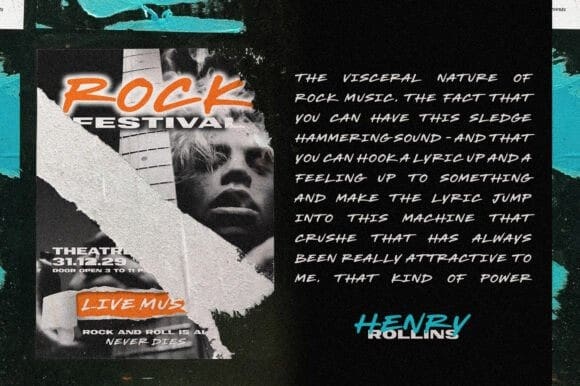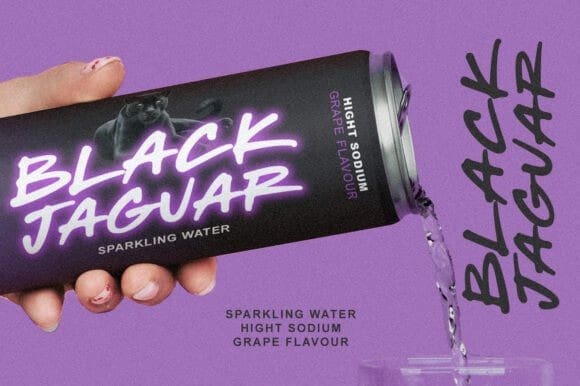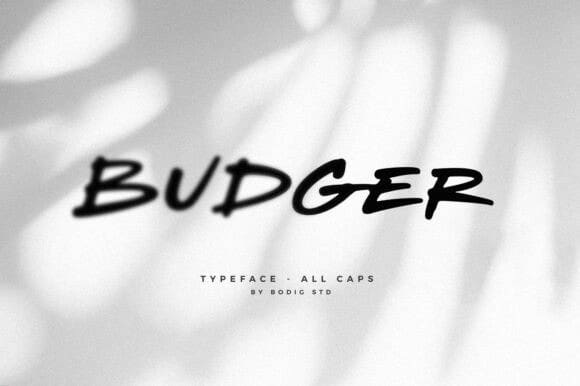
Budger Font
Budger Font is an all-caps typeface with energetic strokes on an irregular base line. Make your mark with this font for any project such as a branding, logo, social media post, outdoor projects, sport, hipster, youth, merchandise, music projects, product designs, poster, flyer, quotes and any projects that need handwriting taste.